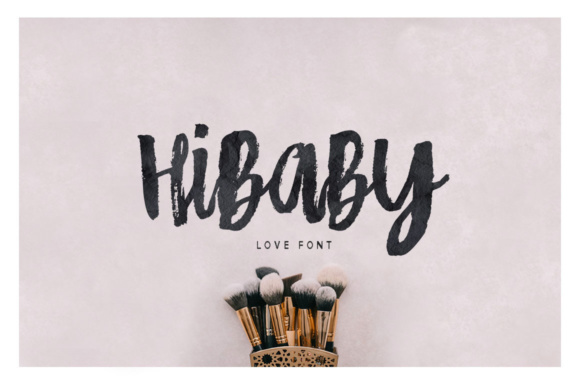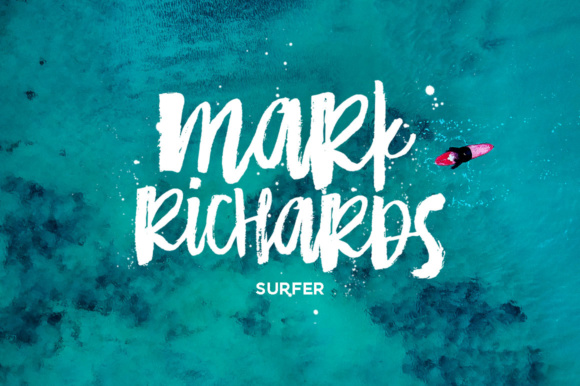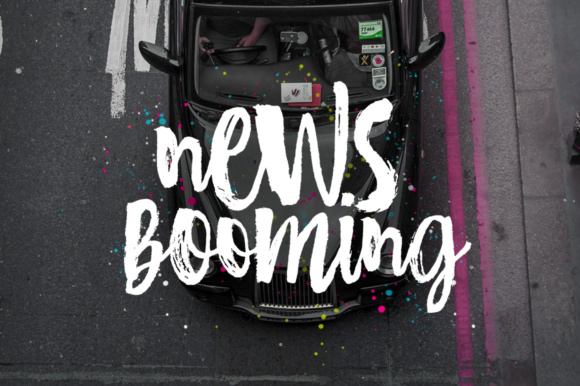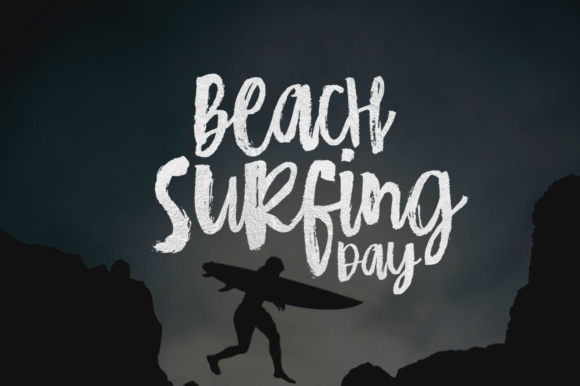
HiBaby Font
About HiBaby Font
HiBaby is a fun, hand painted font that will give your designs an organic kick! This font has a dry bristle look to it, and can add a unique albeit on-trend appeal to your work.